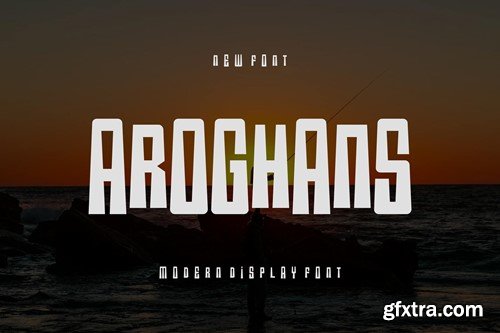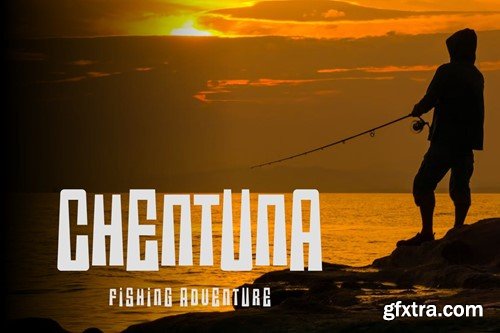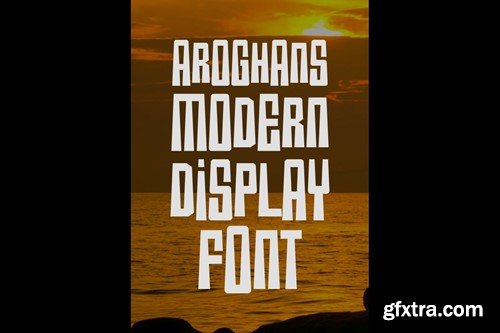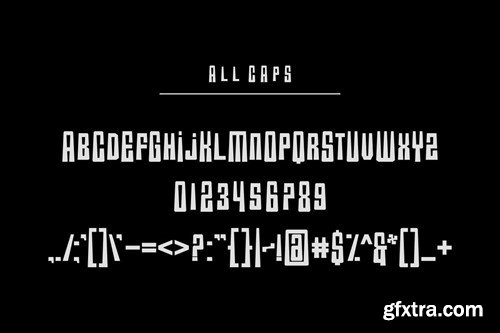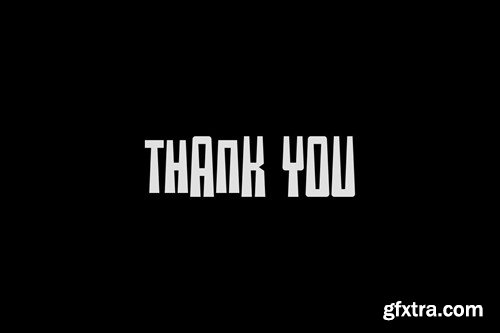
阿罗甘斯字体 99KJBEN
Aroghans Font
Introducing our new product Aroghans Font - Modern Font is a bold and authentic display font. The font is suitable for any branding project like logo, esport, and many more. outstanding in a wide range of contexts. availlable